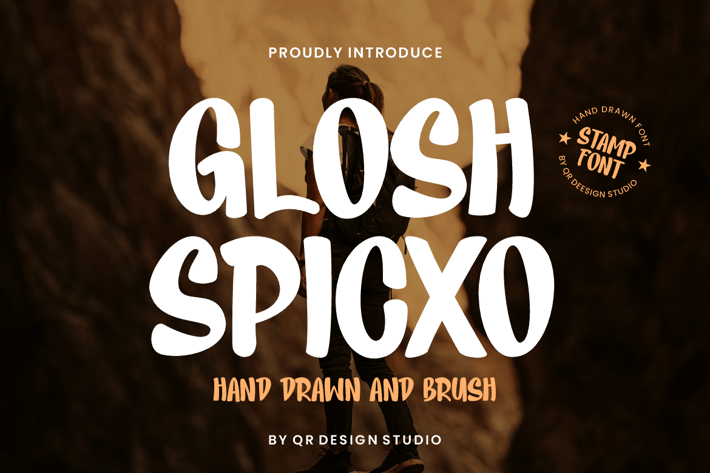
Glosh Spicxo - Marker & Stamp Font
Glosh Spicxo - Marker & Stamp Font is a hand drawn and authentic display font.
The font is suitable for any branding project like food, poster, logo, sport, and many more.